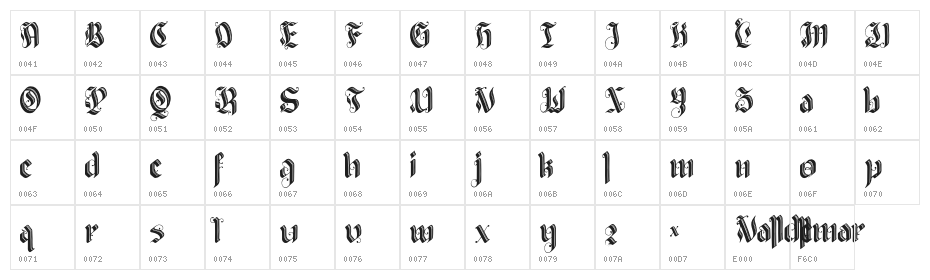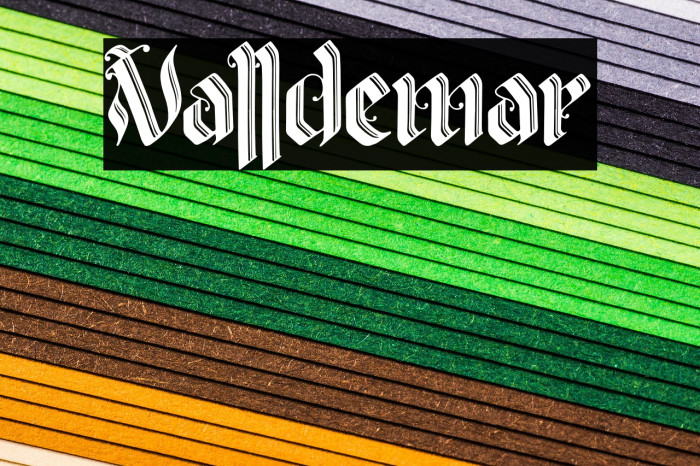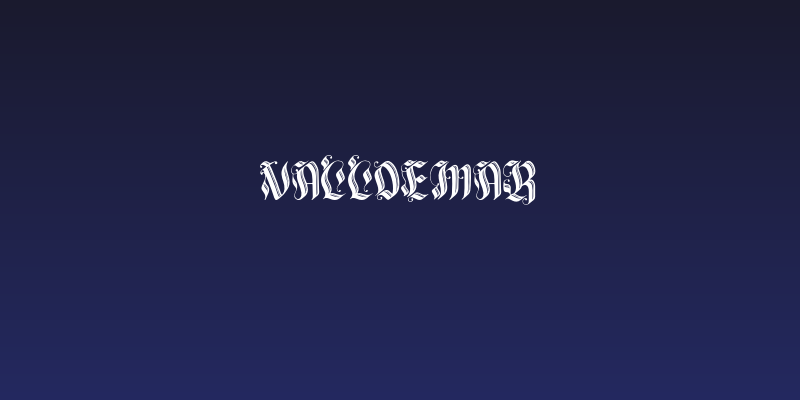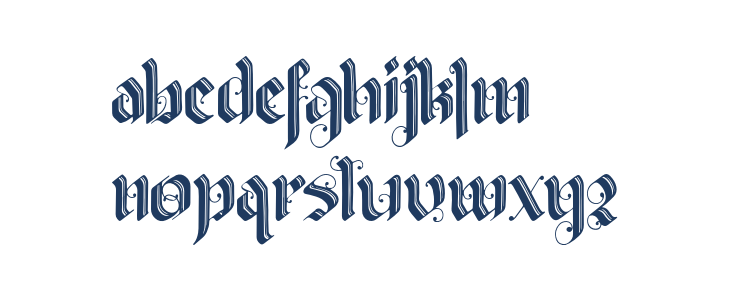
Valldemar Font
Valldemar Description
This font embodies a classic Blackletter style, characterized by its intricate and ornate design. The letters are bold and dramatic, with sharp angles and elaborate flourishes that give it a gothic and medieval appearance. The uppercase letters are particularly striking, with their tall, narrow forms and decorative elements that extend beyond the main body of the letter. The lowercase letters maintain the same level of detail, ensuring consistency throughout the typeface. The numbers and special characters are equally ornate, making this font suitable for projects that require a historical or traditional aesthetic.
| Width | Condensed |
| Overall Style | Vintage |
| Proposed Projects | Ideal for historical documents, wedding invitations, book covers, and branding that requires a traditional or gothic touch. |